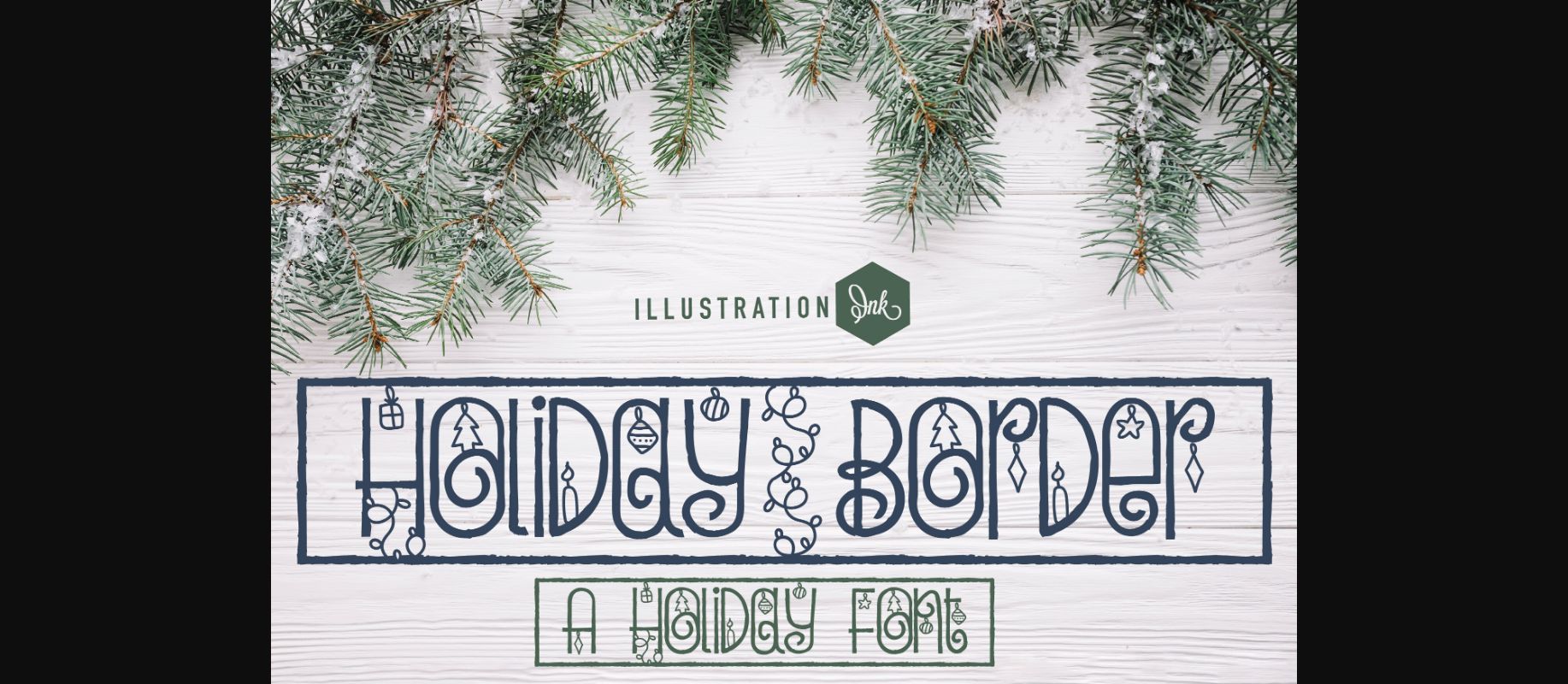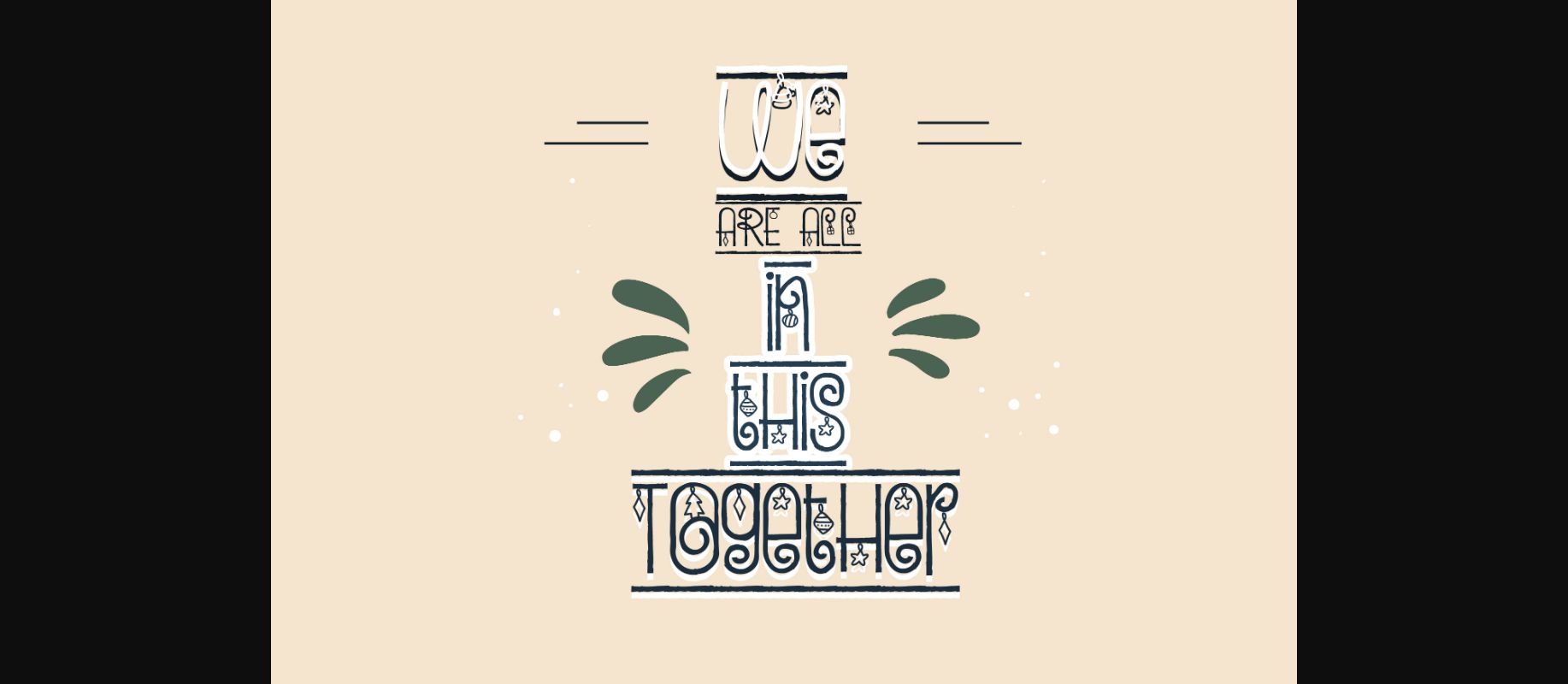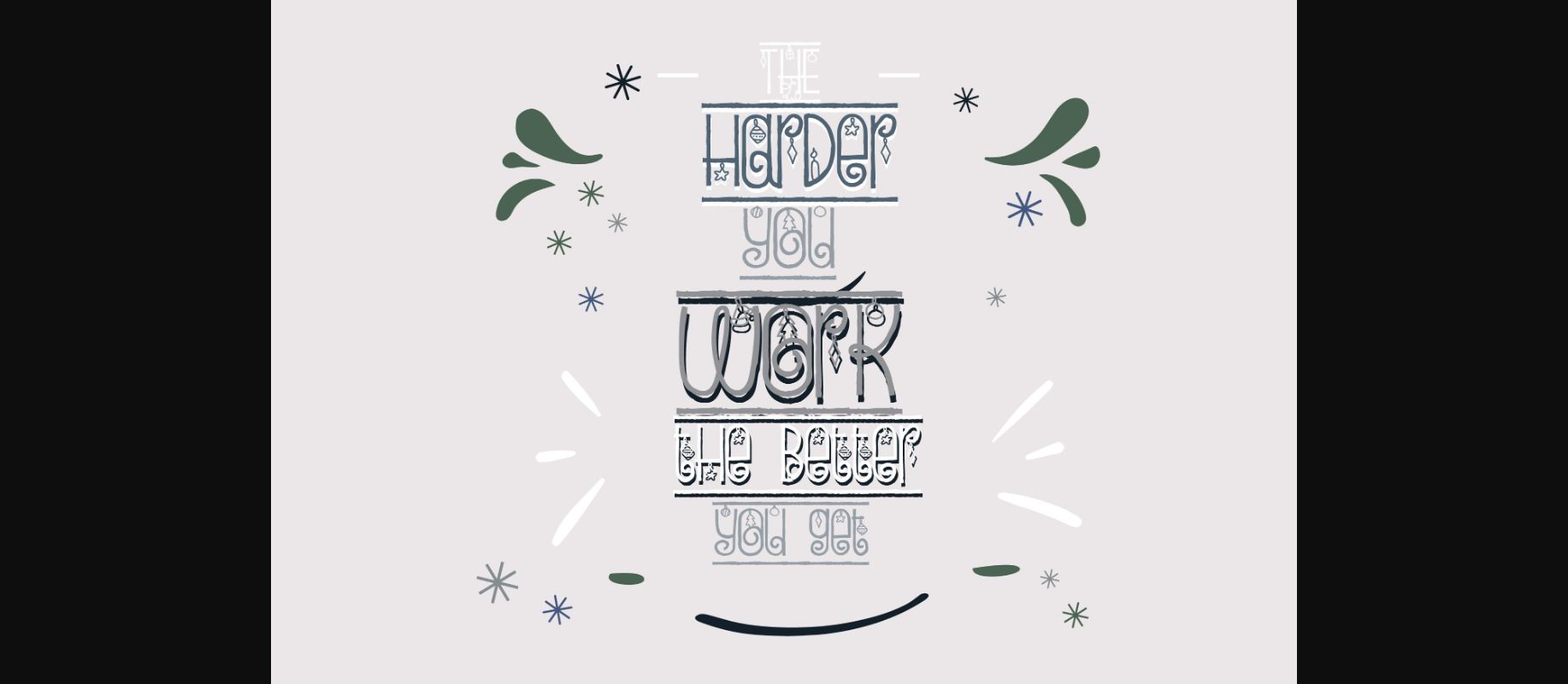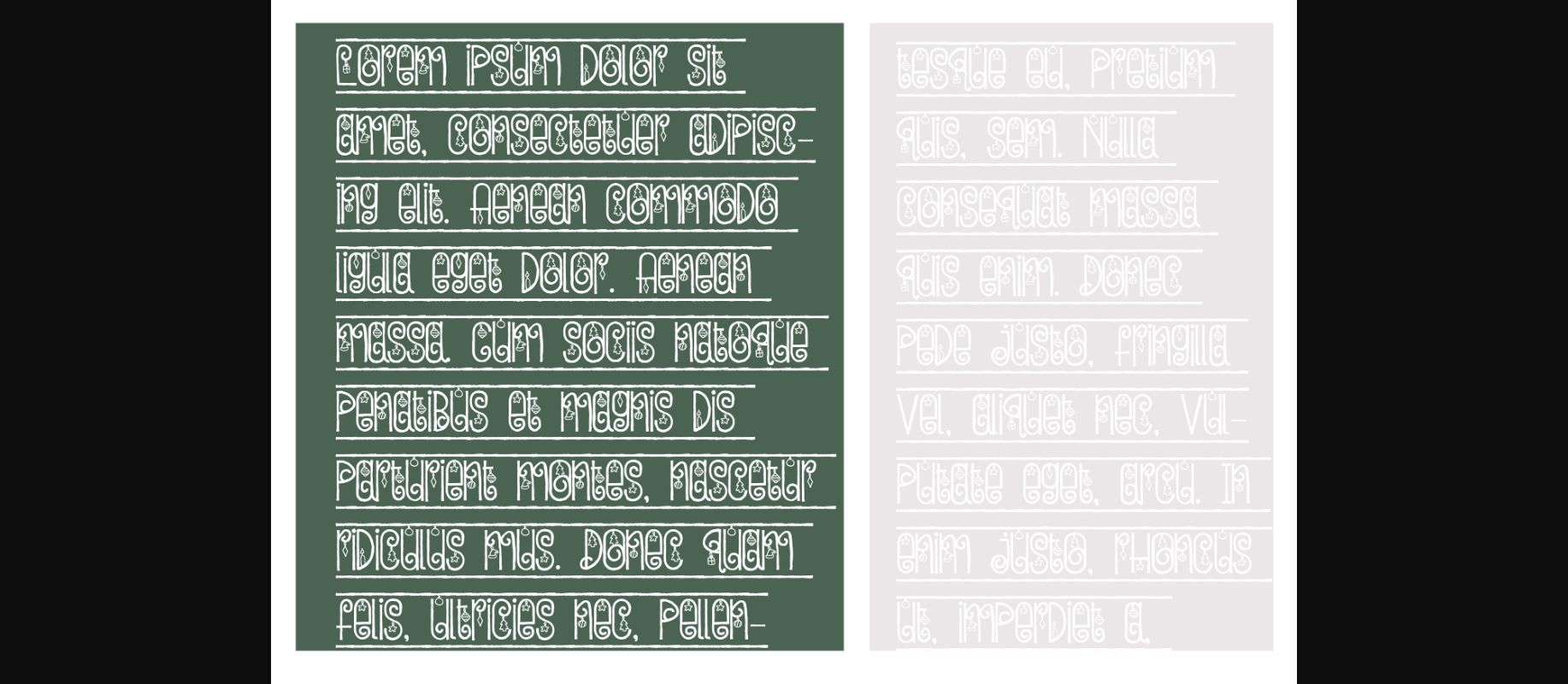
About Holiday Border Font
This hand-crafted sans serif font features a texture print surrounded by borders with Christmas elements and ornaments. Use the brackets to finish border edges.
A hand-crafted font is a font that is designed to look like it was written by hand. It is often used for invitations, greeting cards, and other items. Handwritten fonts can be either formal or informal, and they can be used for a variety of purposes.
Handwritten fonts can be a great way to add a casual touch to your designs. They can also be used to create a sense of nostalgia or whimsy. However, it is important to choose a handwritten font that is appropriate for the project you are working on. A formal handwritten font may not be appropriate for a casual invitation, while an informal handwritten font may not be appropriate for a corporate document.
A hand-crafted font is a font that is designed to look like it was written by hand. It is often used for invitations, greeting cards, and other items. Handwritten fonts can be either formal or informal, and they can be used for a variety of purposes.
Handwritten fonts can be a great way to add a casual touch to your designs. They can also be used to create a sense of nostalgia or whimsy. However, it is important to choose a handwritten font that is appropriate for the project you are working on. A formal handwritten font may not be appropriate for a casual invitation, while an informal handwritten font may not be appropriate for a corporate document.